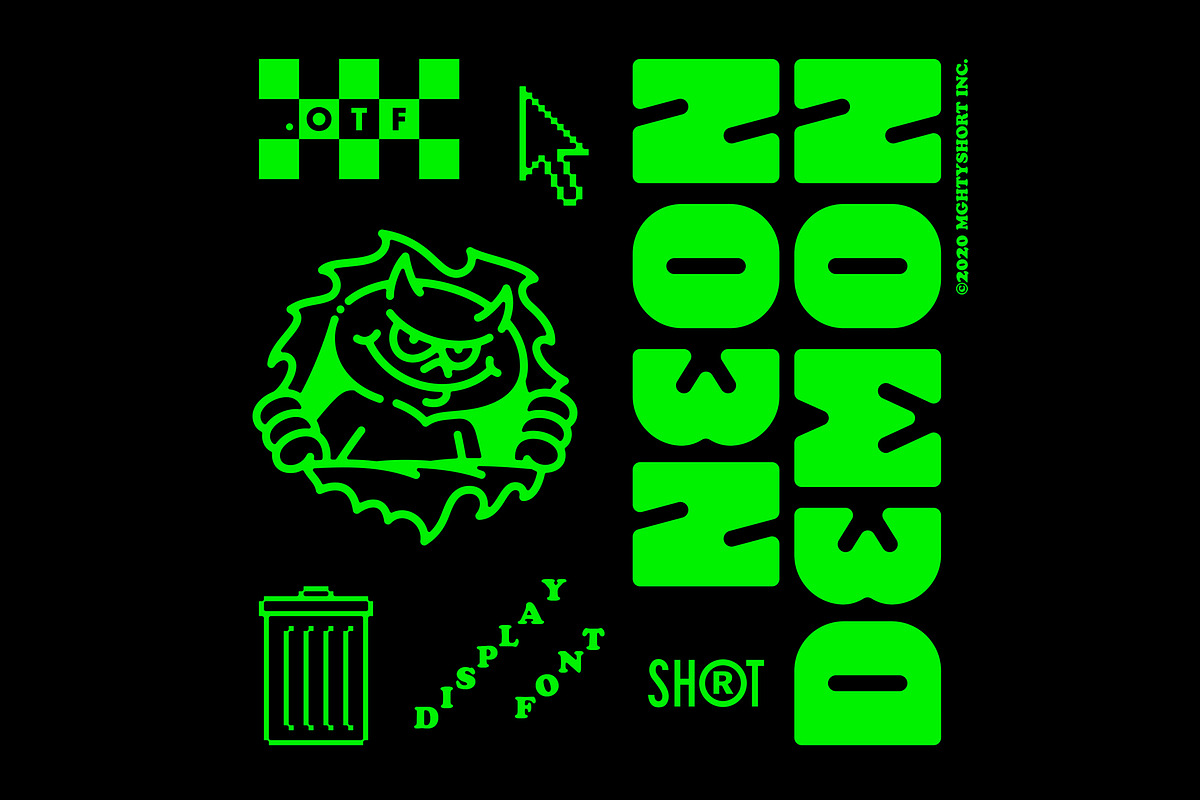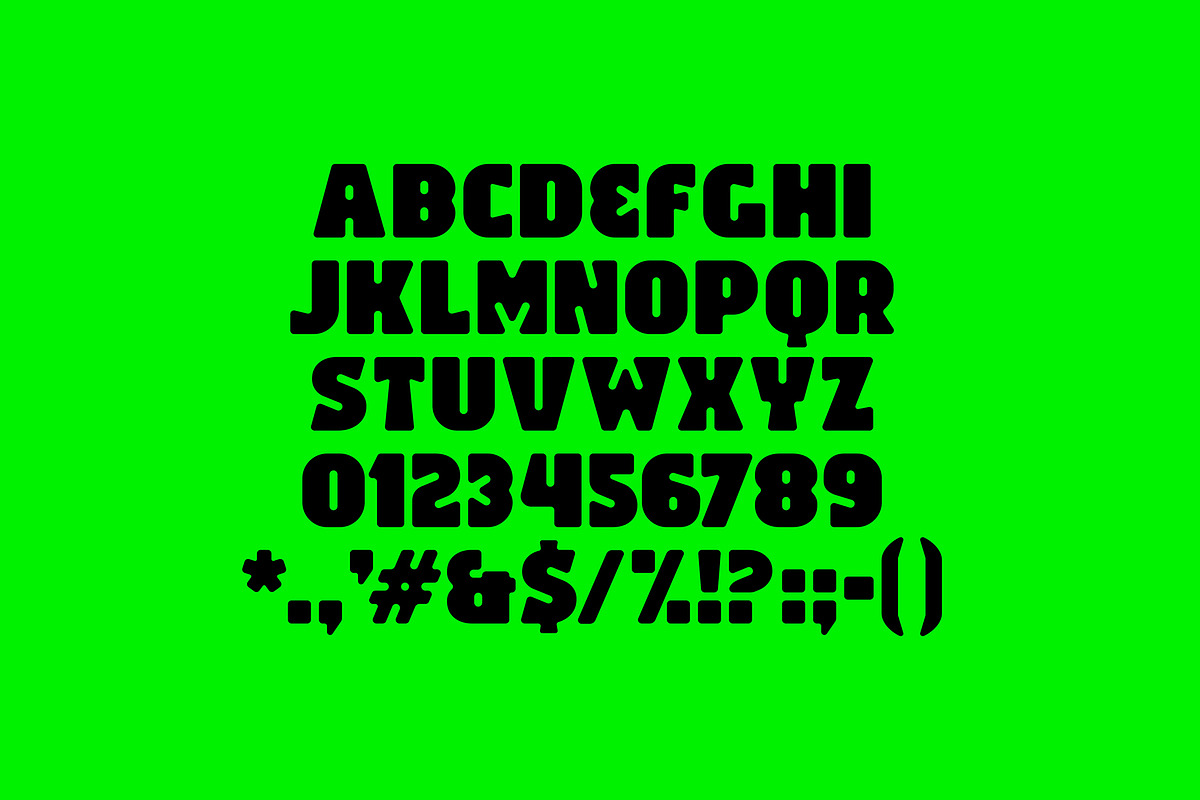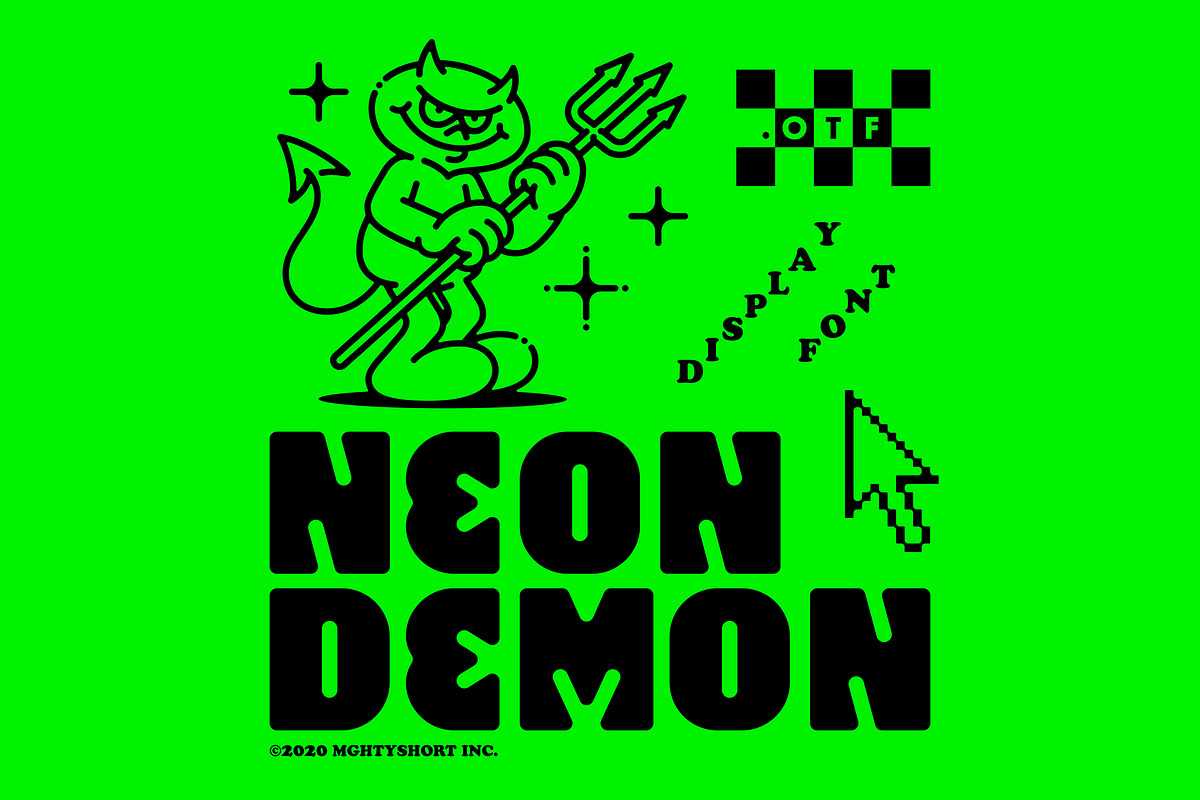
Neon Demon Font
Add a rad looking to your designs using “Neon Demon”.
Including gnarly characters, numbers and punctuation. Hell yeah!
Why Neon Demon Font is worth a look
Neon Demon Font by MightySHORT fits naturally into Branding, posters, packaging, typography.